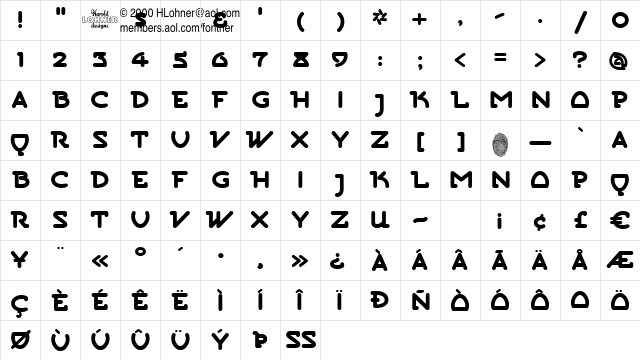
SanitaryBold Caps Regular
Design Context for SanitaryBold Caps Typeface
SanitaryBold Caps offers clean, dependable letterforms without strong stylistic allegiance, making it a practical choice for designers who need flexibility. Its bold stroke weight gives it real presence on the page.